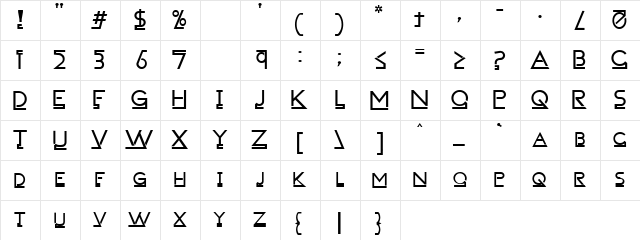
FailedFont 1 Linemorph
| Style | Linemorph |
Design Context for FailedFont 1 Typeface
FailedFont 1 offers clean, dependable letterforms without strong stylistic allegiance, making it a practical choice for designers who need flexibility.